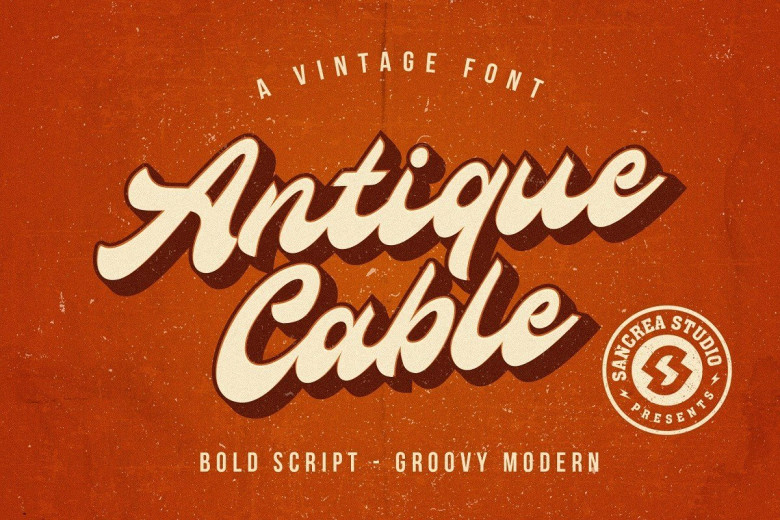
Antique Cable Bold Script Font
Antique Cable is a flowing bold script font, delivering an incredible vintage aesthetic. Fall in love with its incredibly distinct and timeless style and use it to create spectacular designs!